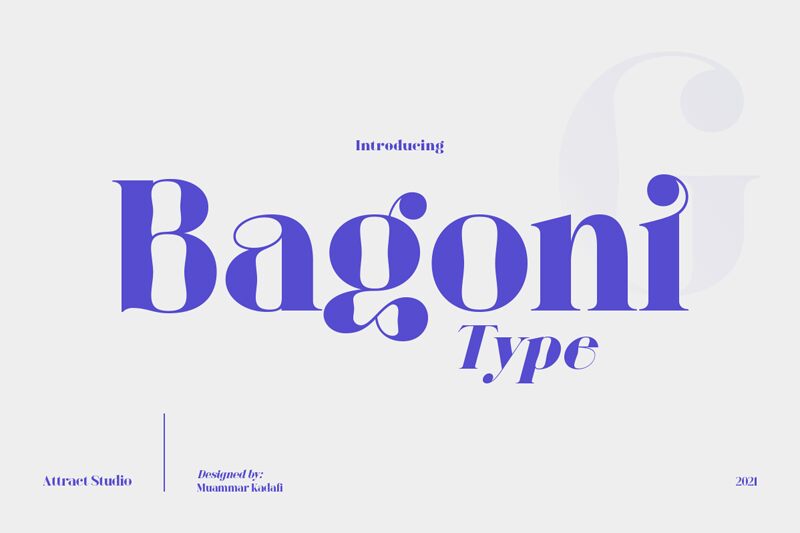
Bagoni Type Regular
Bagoni Type font by Attract Studio is a refined bold serif whose elegance brings together classic timeless typography with modern minimal forms. Simple yet extremely sophisticated; that is what makes this font ideal for reaching a high-class aesthetic. Let the elegant curves do the trick and transform any design into an eye-catcher.
Use Bagoni Type in advertising, branding, packaging, title design, magazines and books to get an instant professional-looking outcome. It can also be great in product labels, album covers, movie posters, menus and more!